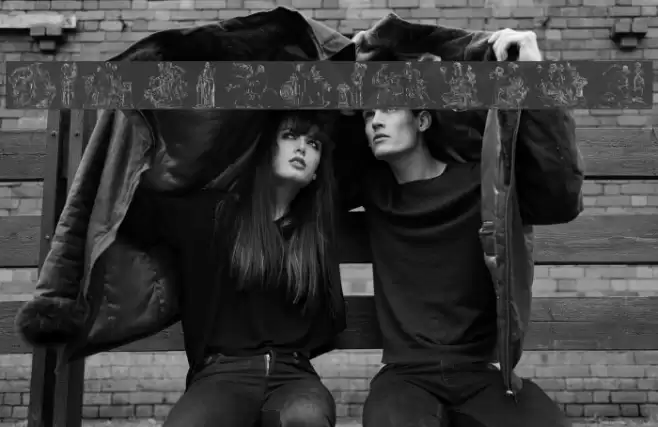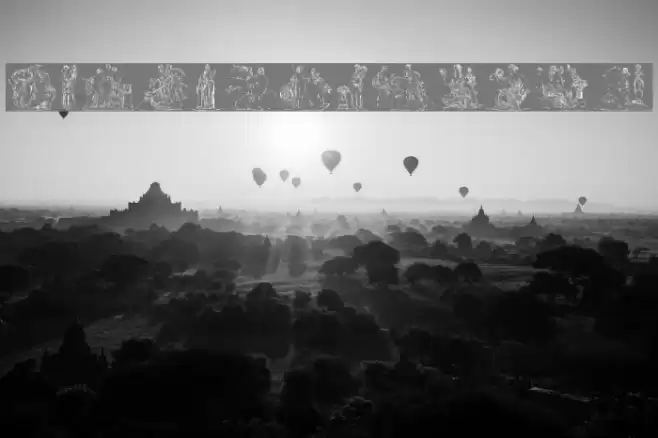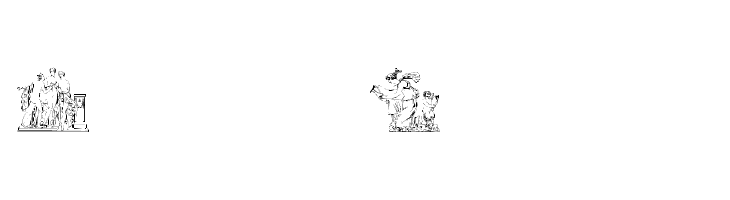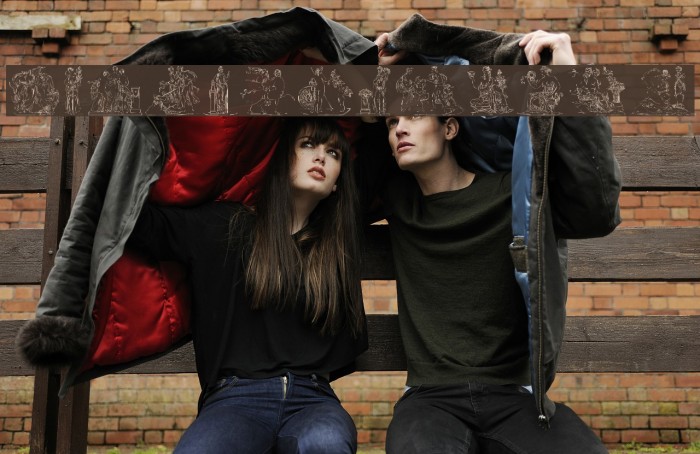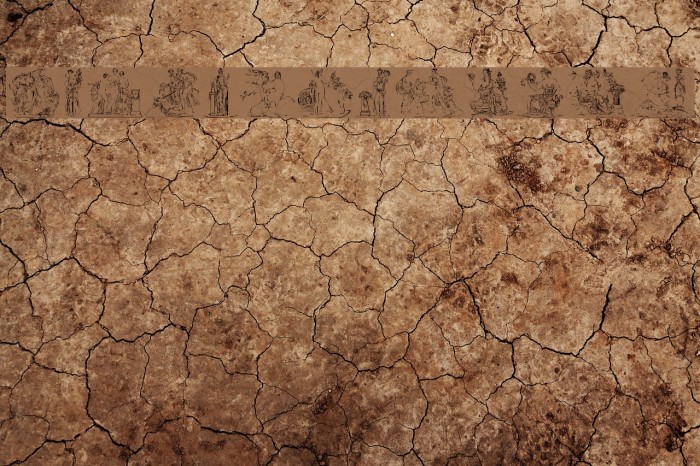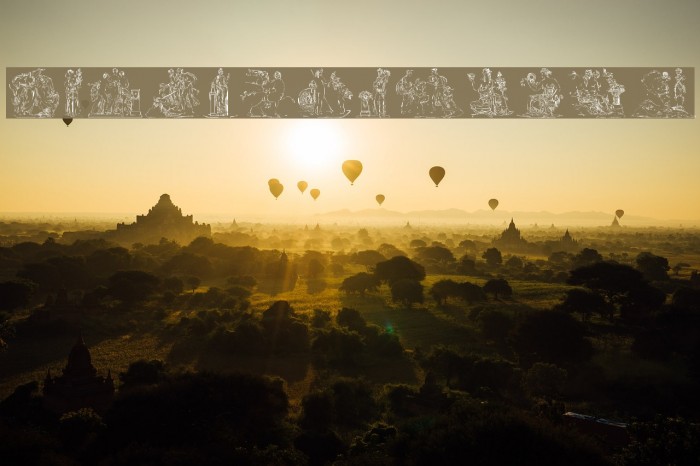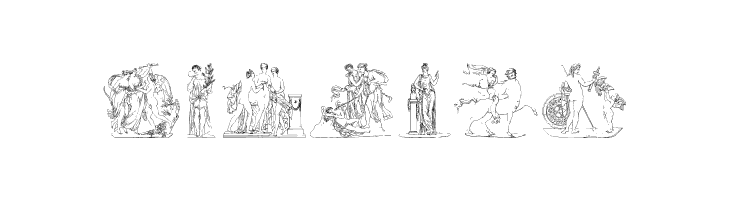
ClassicSketches Font
ClassicSketches Description
A decorative display set featuring intricate, hand-drawn sketch illustrations of classic scenes and figures in place of standard alphanumeric characters and symbols. Each glyph is a unique, detailed vignette rather than a traditional letterform.
Hand-drawn, illustrative display set with classic scene sketches for each character from Uncategorized fonts.
- Proposed Projects: Book covers, vintage posters, artistic branding, themed invitations, decorative headings.
- Overall Style: Vintage, Decorative, Artistic
- Use Case: Logos, Headlines, Posters, Artistic projects